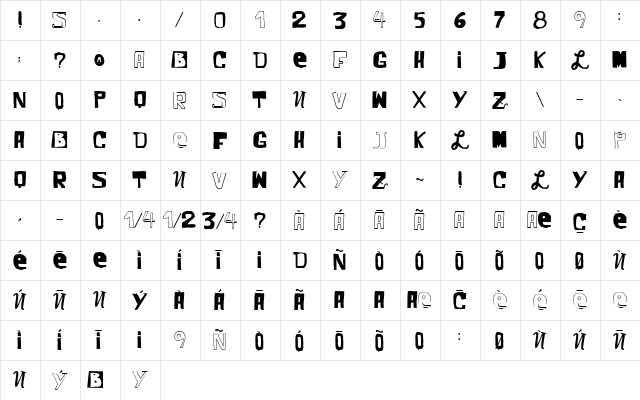
VTKS COMIC Regular
| Foundry | DOUGLAS VITKAUSKAS |
| Designer | DOUGLAS VITKAUSKAS |
Design Context for VTKS COMIC Typeface
VTKS COMIC has an approachable, lighthearted character — its loose, expressive forms are well-suited to children's content, casual branding, and fun-first design.
Font Pairing: Pairs well with a rounded or humanist sans for body copy, maintaining the friendly tone without relying on VTKS COMIC to carry extended reading.
Pro Tip: Avoid using VTKS COMIC for long passages of text — it works best for headlines, labels, and short calls to action.